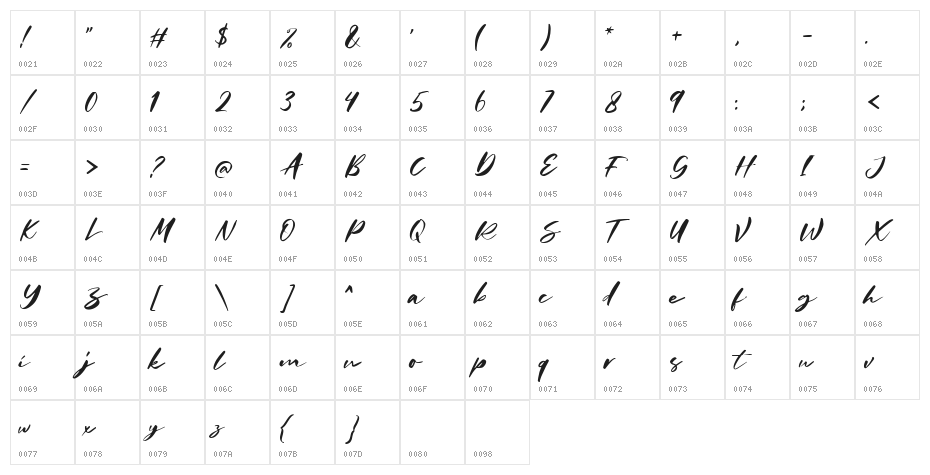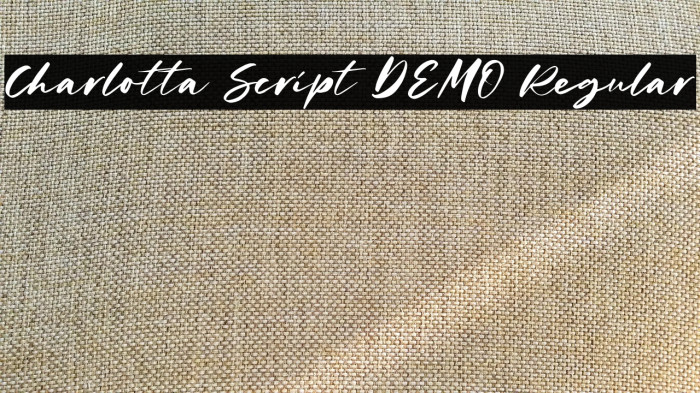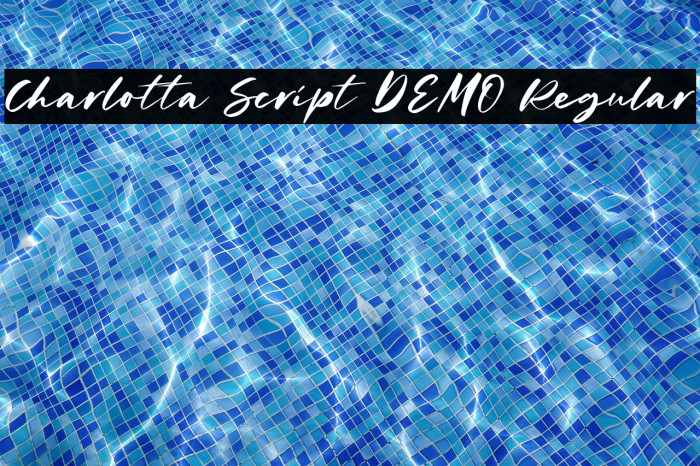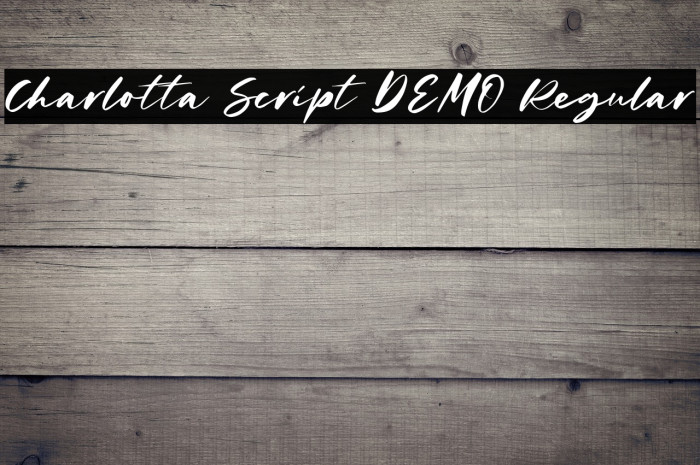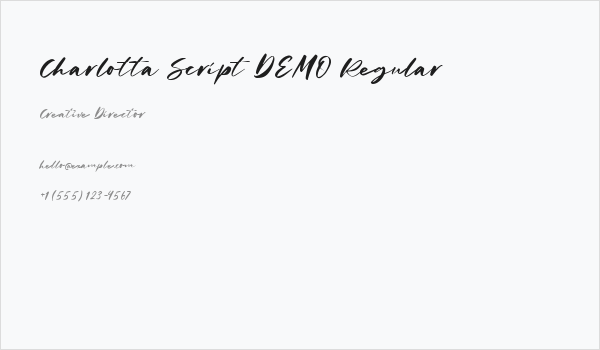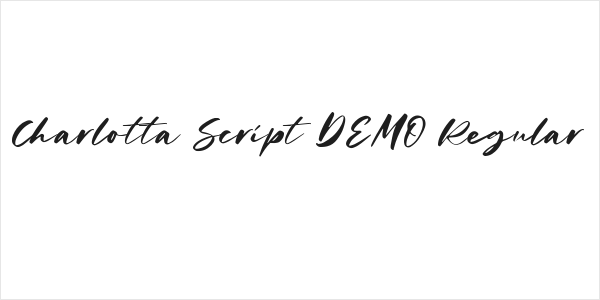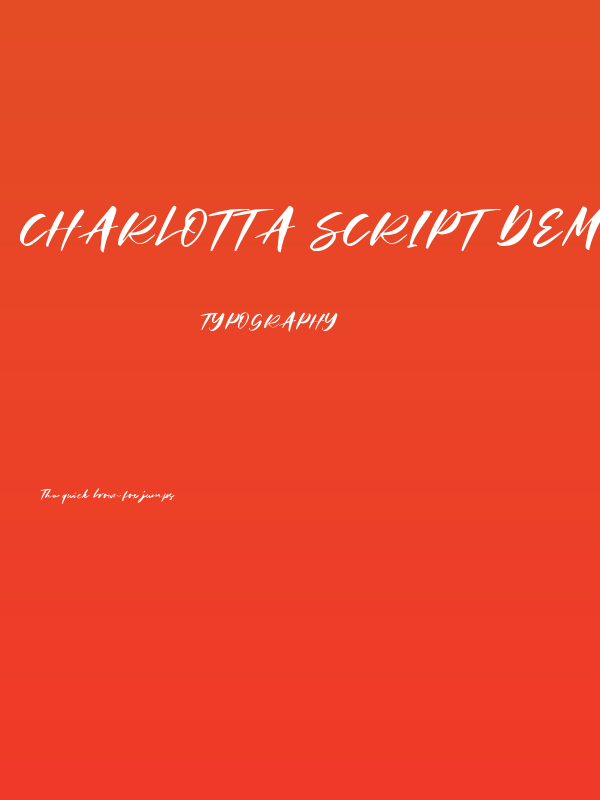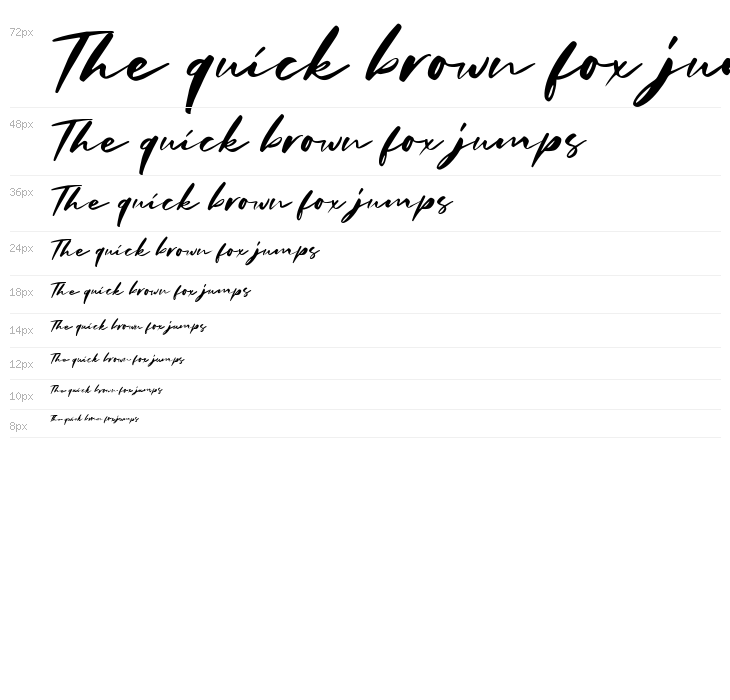
Charlotta Script DEMO Regular Font
Charlotta Script DEMO Regular Description
This script font features a flowing, cursive style with elegant, sweeping strokes that mimic the fluidity of handwriting. The characters are connected, creating a seamless and continuous look. The uppercase letters are bold and expressive, while the lowercase letters maintain a graceful and delicate appearance. The numerals and special characters are designed to complement the overall script style, adding a touch of sophistication. This font exudes a sense of elegance and charm, making it ideal for projects that require a personal and artistic touch.
| Overall Style | Elegant, Artistic |
| Use Case | Logos, Invitations, Decorative text |
| Proposed Projects | Ideal for wedding invitations, greeting cards, branding, and logo design. |